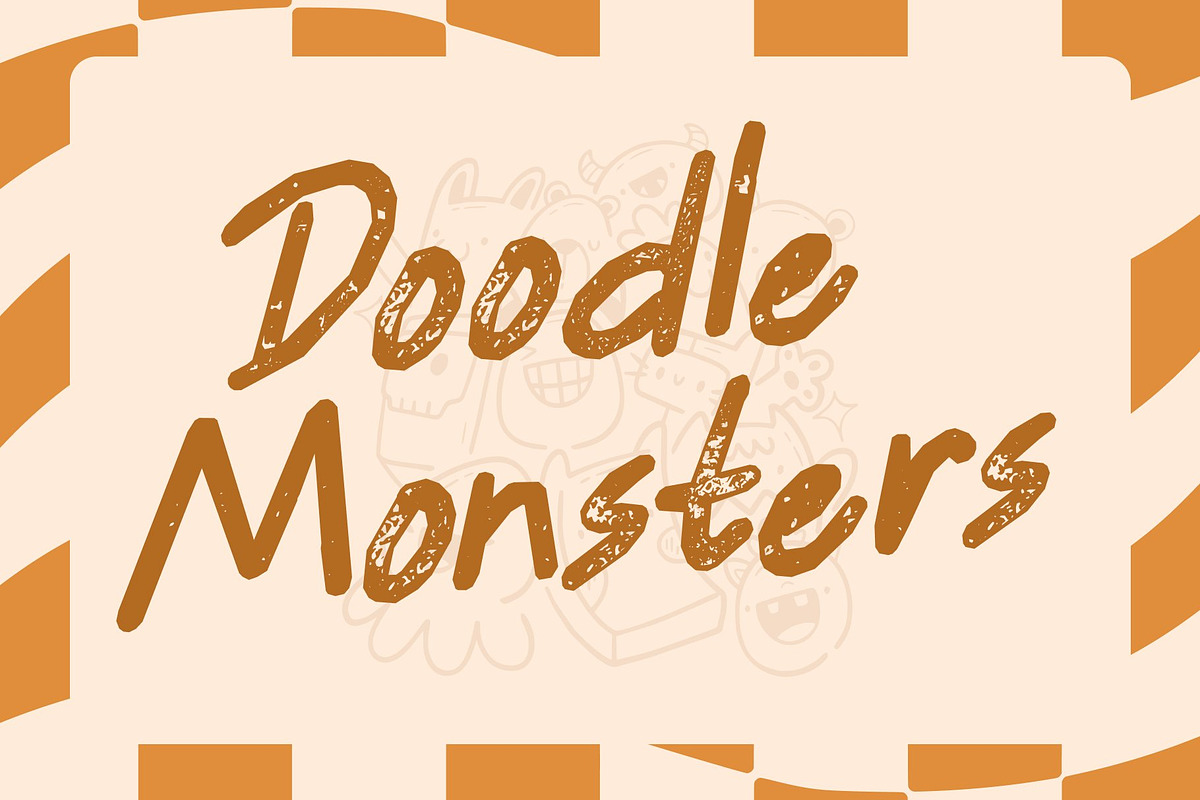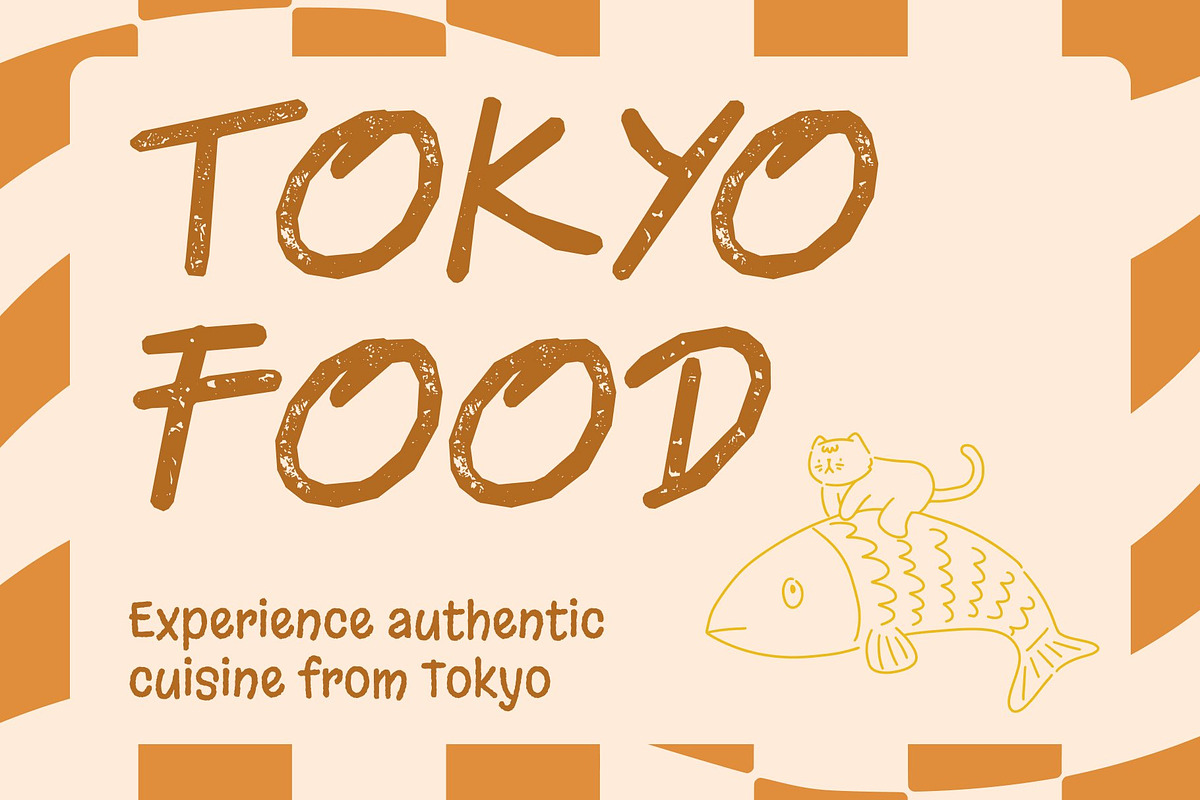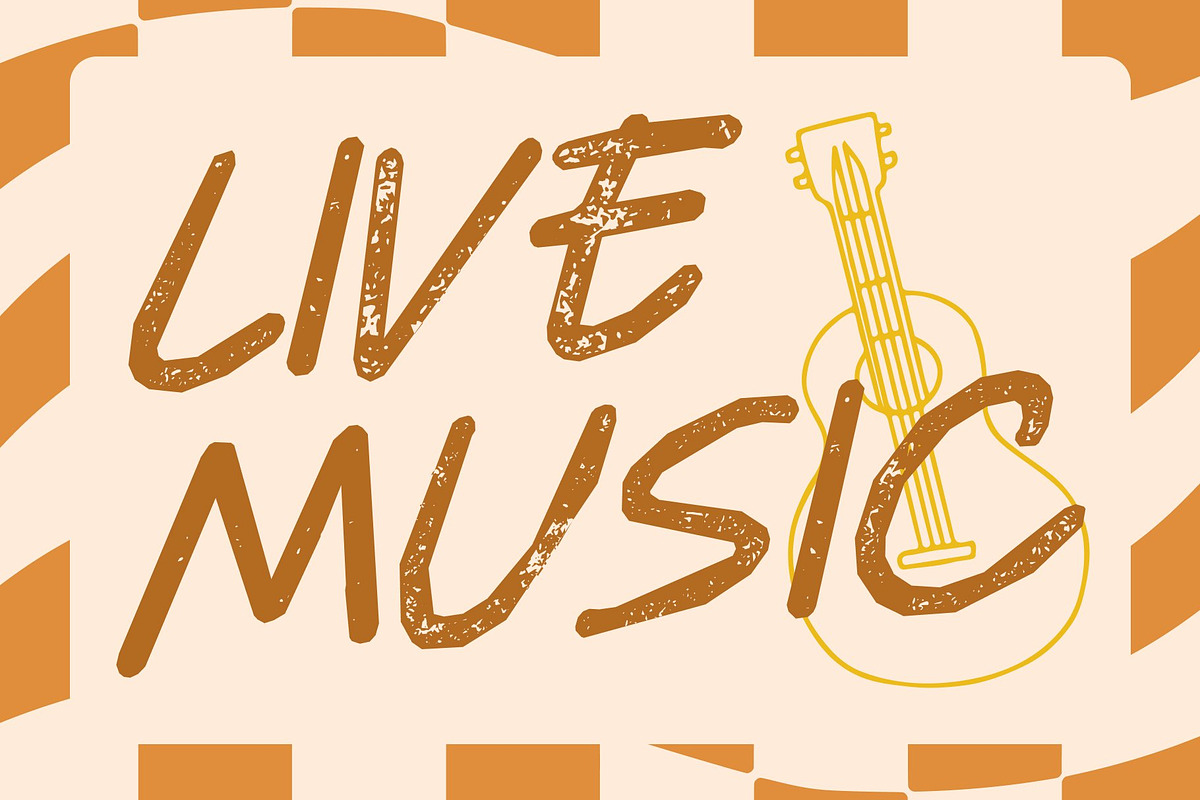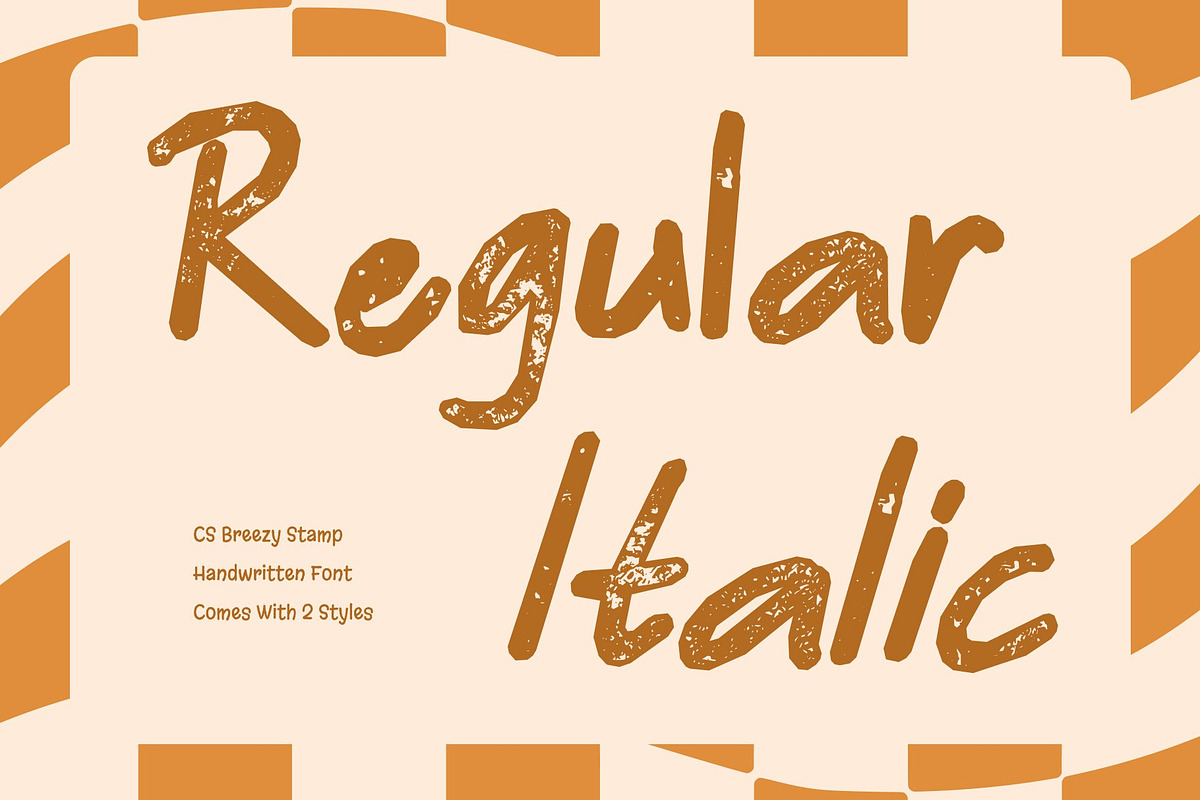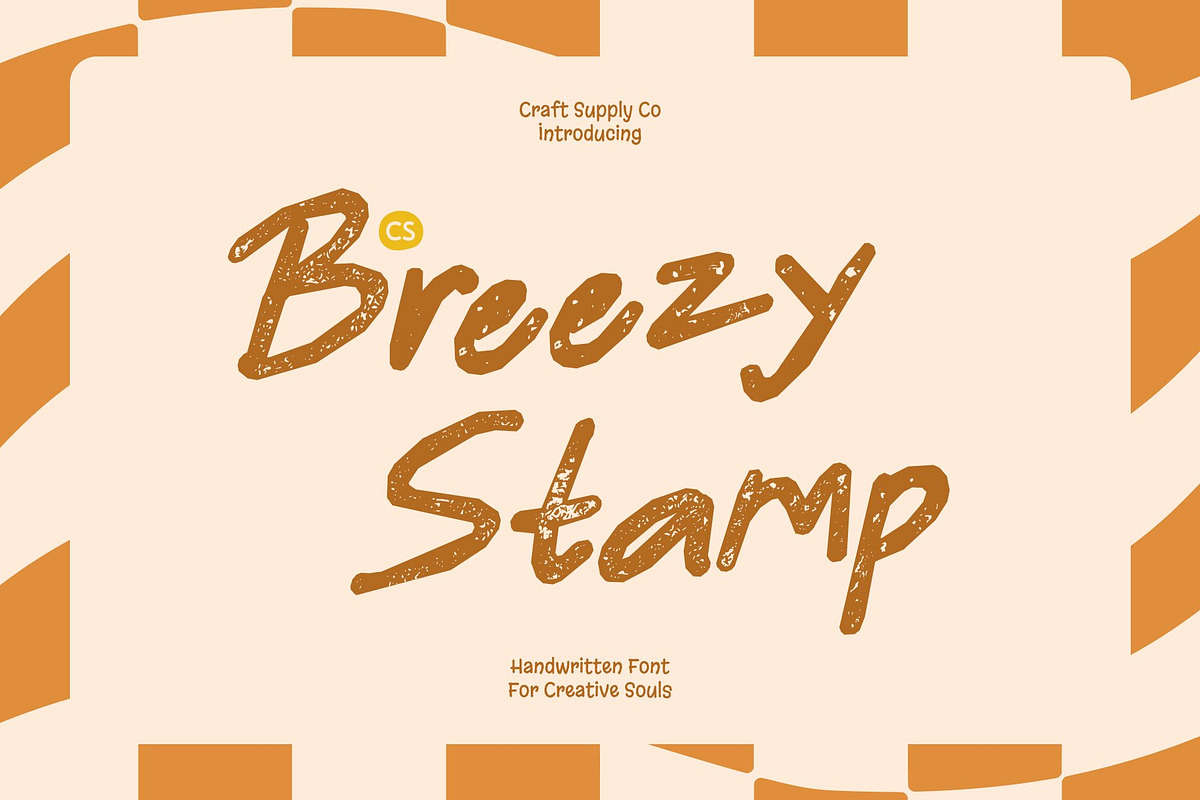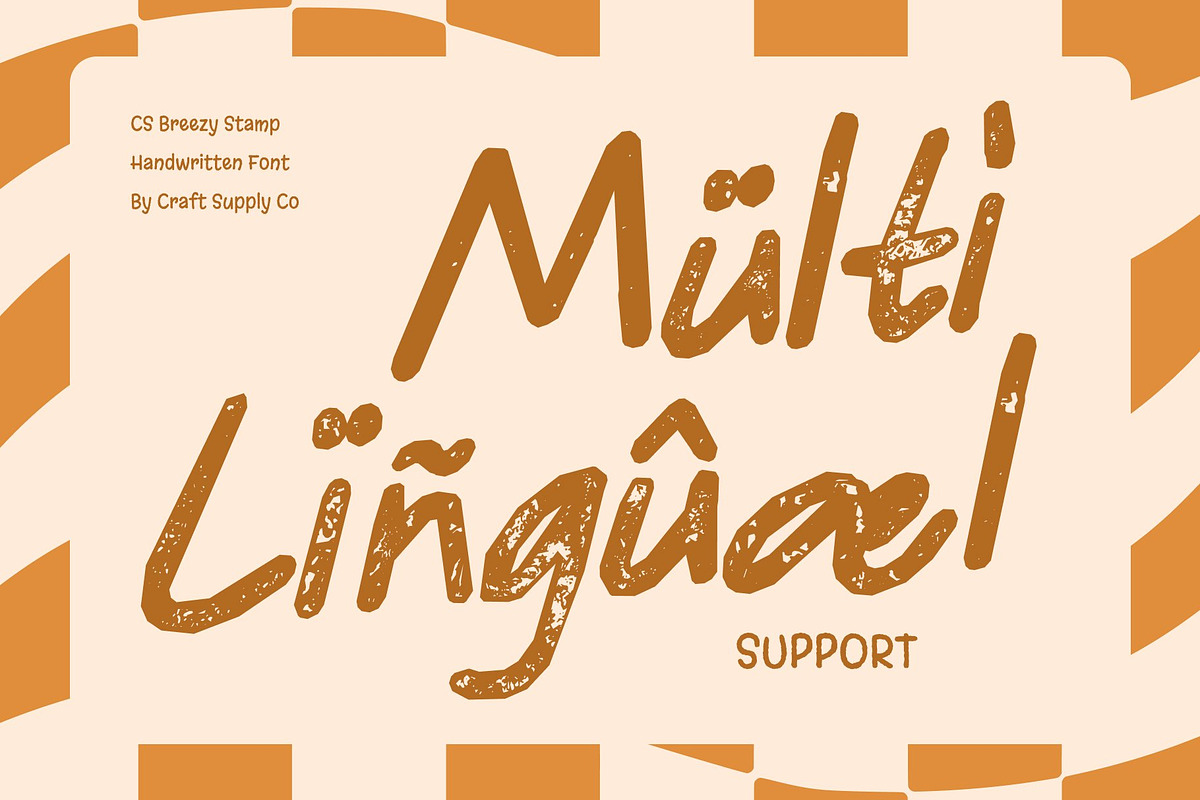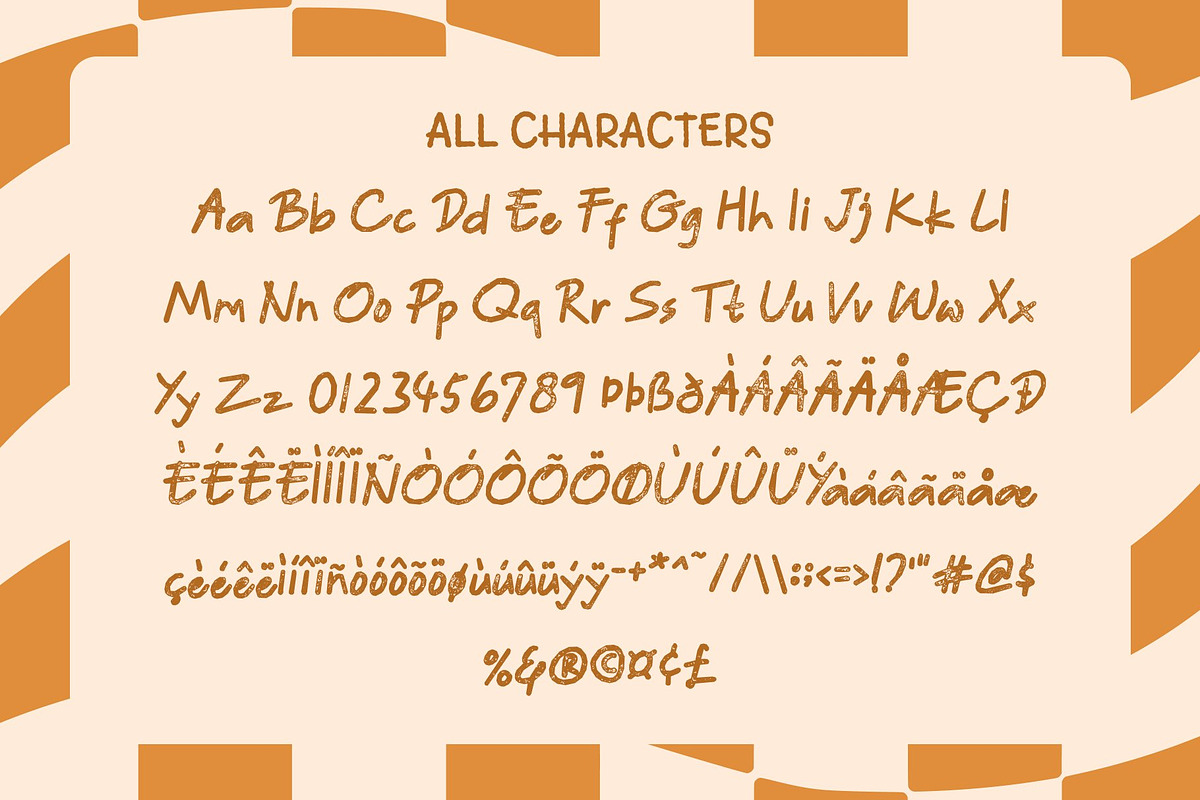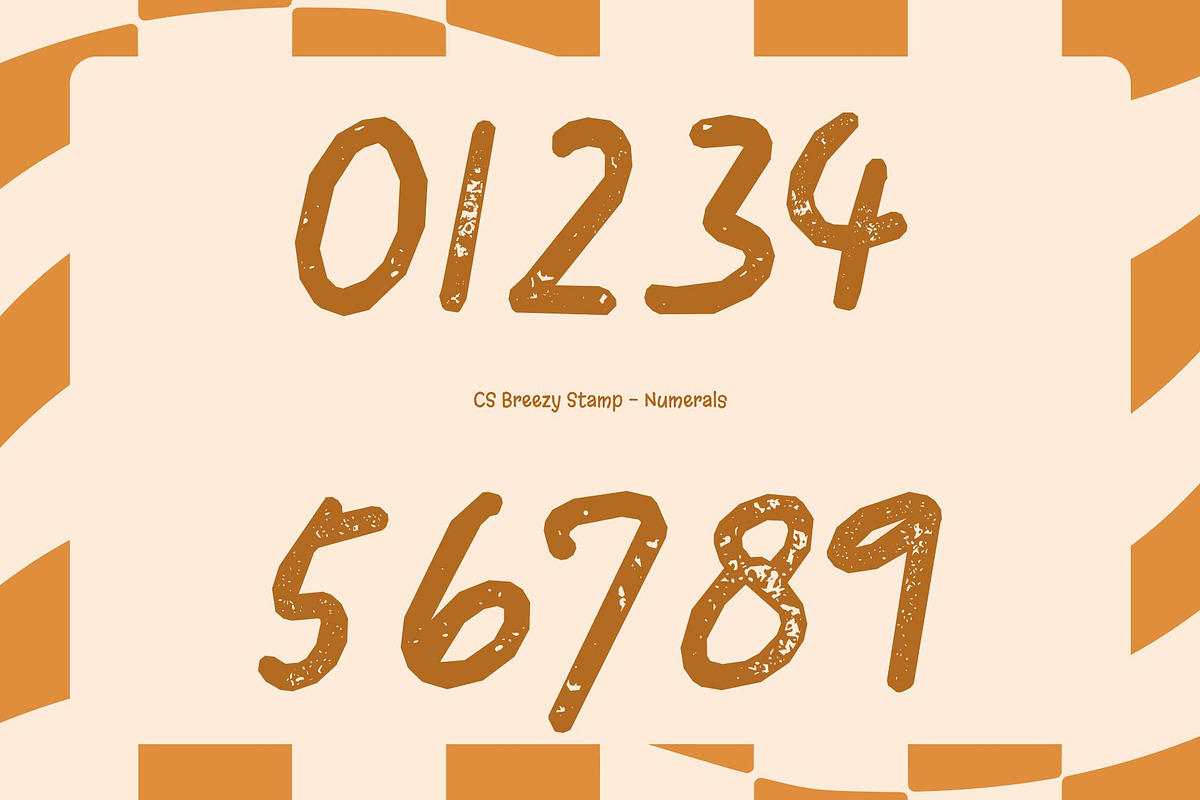
CS Breezy Stamp
CS Breezy Stamp – Fresh Handwritten Energy with Textured Charm
Lively Sans Serif with a Stamped Touch This brings a bright handwritten sans serif style to life with a subtle stamped texture that adds warmth and authenticity. Its clean yet playful strokes remain light and modern, while gentle ink variations and softly imperfect edges create a handcrafted feel—like a joyful imprint on paper.
Playful Simplicity with Organic Depth The uncluttered sans serif structure keeps the font clear and contemporary, while its natural handwritten flow introduces personality and movement. The stamped effect enhances this balance, adding tactile richness without overwhelming its airy character. The result is fresh, expressive, and effortlessly inviting.
Spring-Inspired Spirit with Artistic Texture Radiating renewal and positivity, captures the uplifting energy of spring. Each letter carries a gentle rhythm that feels vibrant and alive, now deepened with a print-inspired finish that adds visual warmth. It’s perfect for seasonal campaigns, wellness branding, lifestyle visuals, and cheerful storytelling.
Ideal for Invitations and Joyful Designs From greeting cards and event invitations to social media graphics and lighthearted branding, adds a refreshing, friendly tone. Its combination of handwritten charm and stamped texture ensures every message feels authentic, bright, and beautifully full of life.
CS Breezy Stamp Regular
CS Breezy Stamp Italic